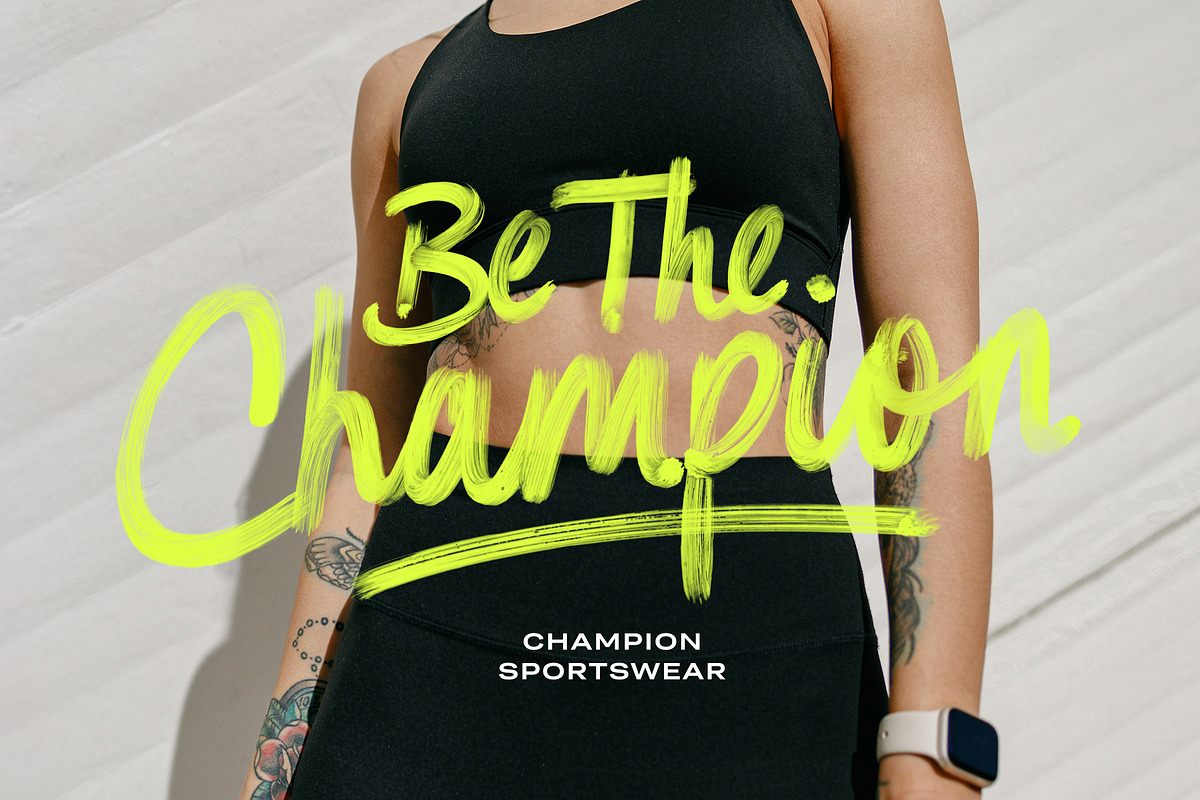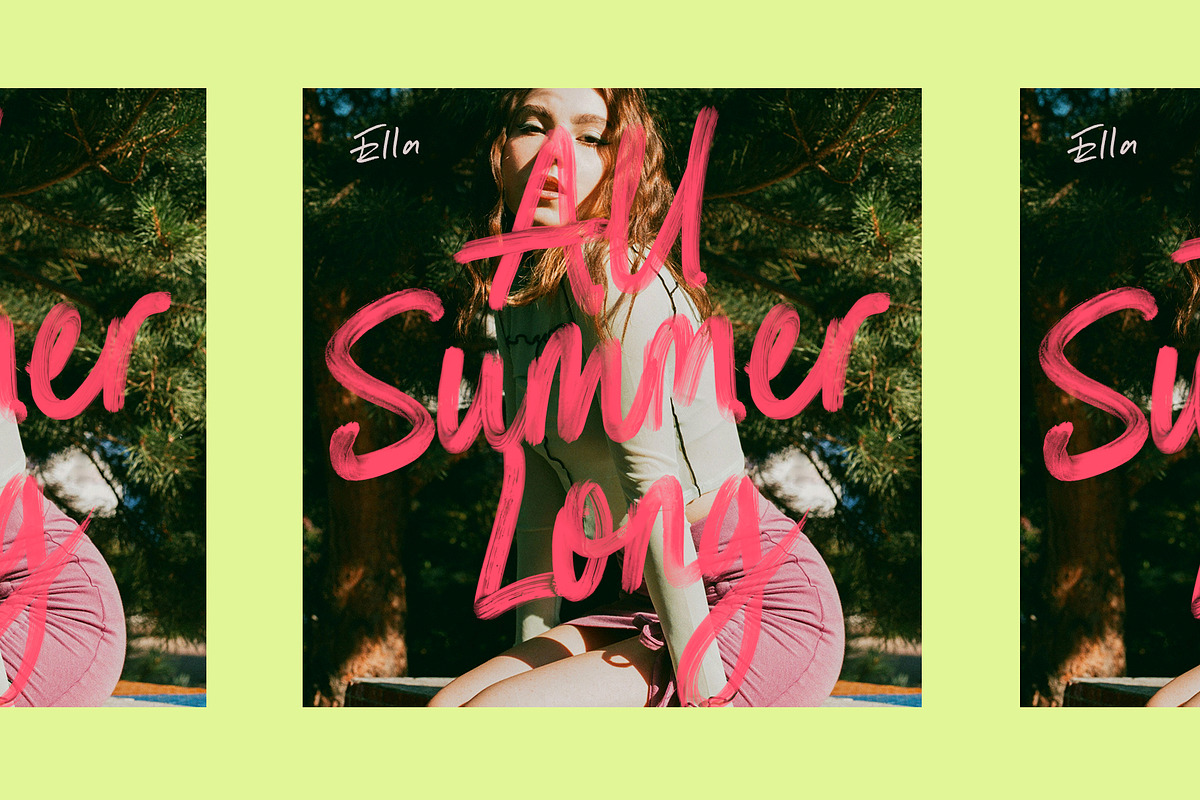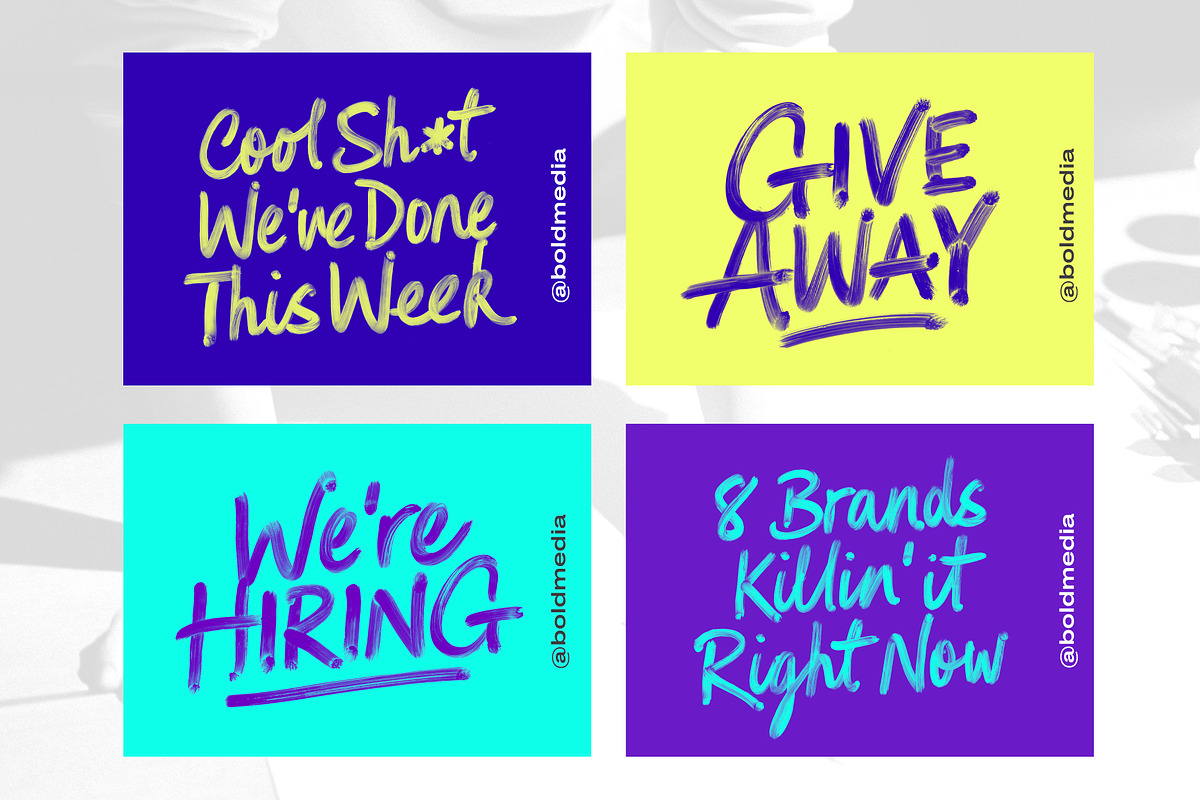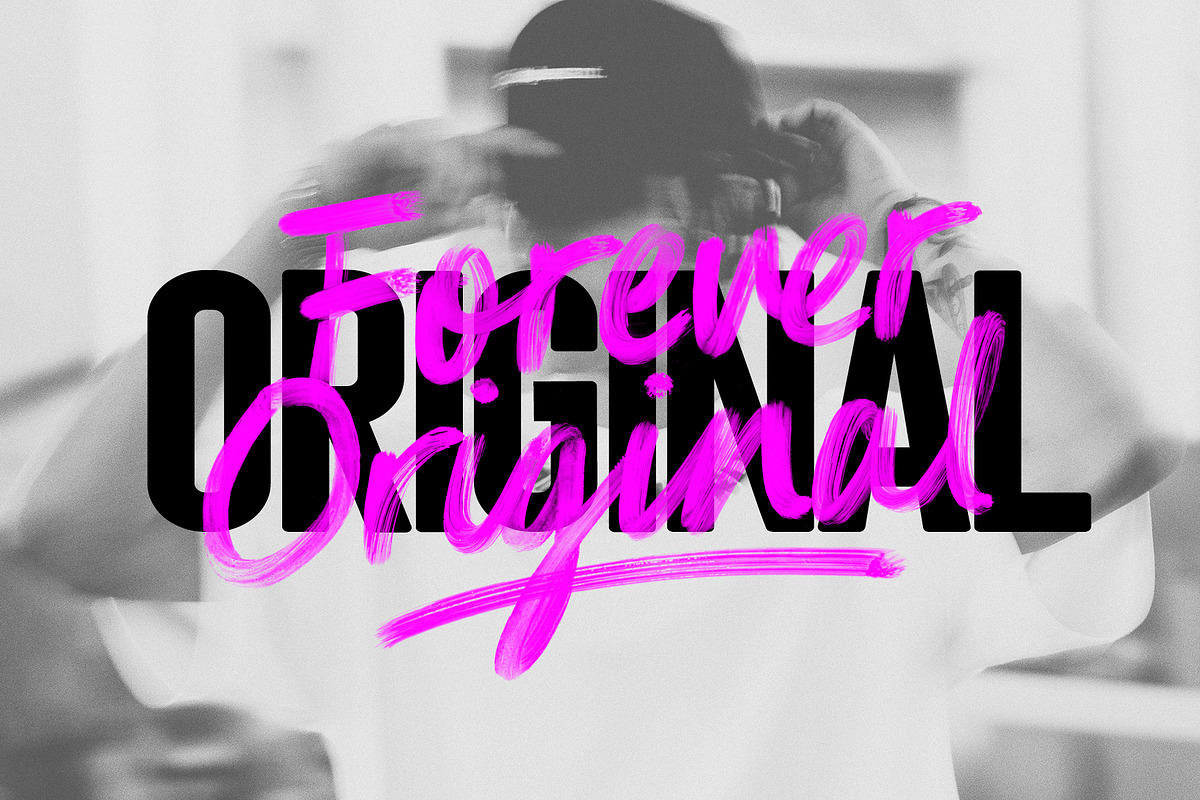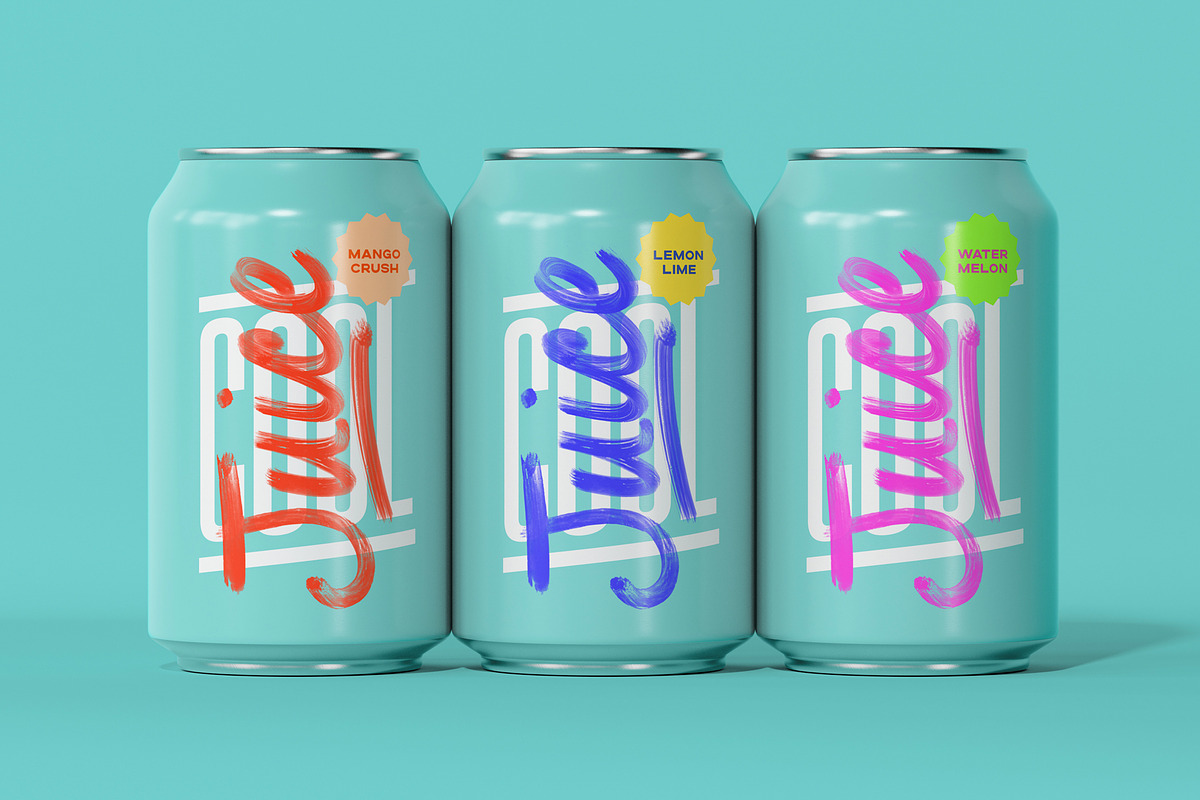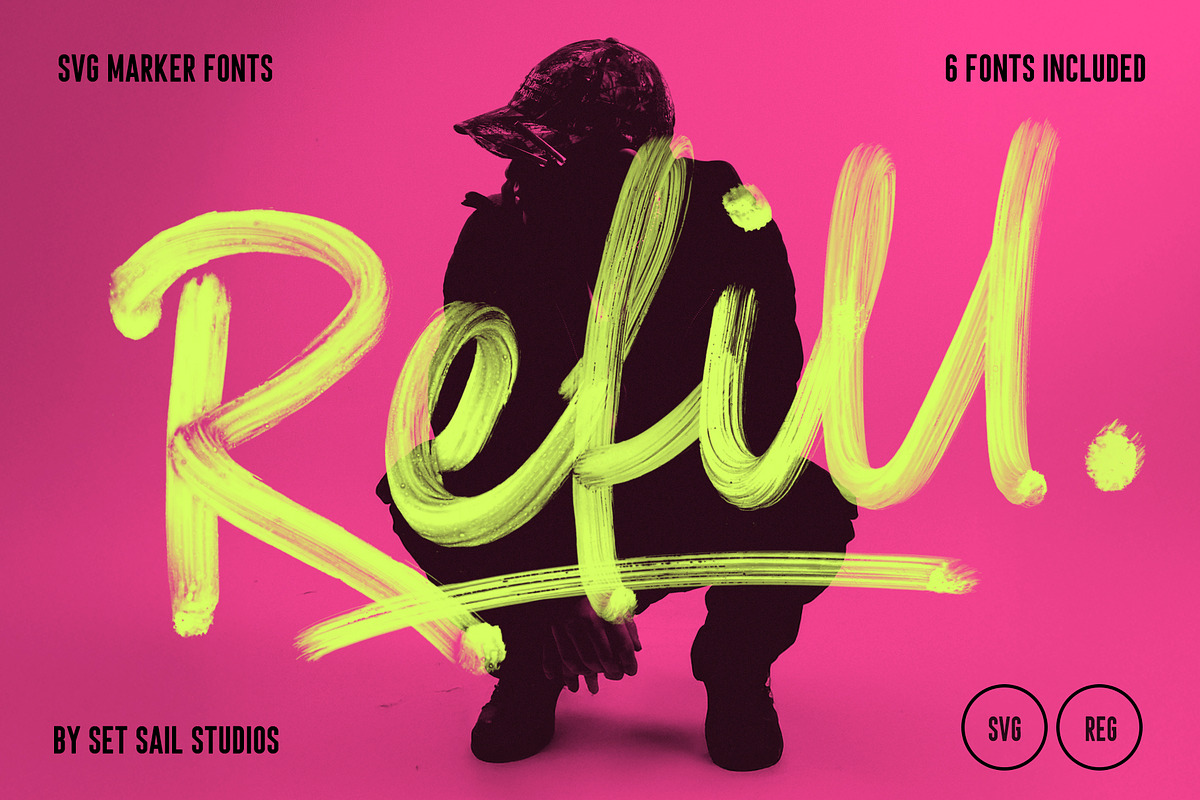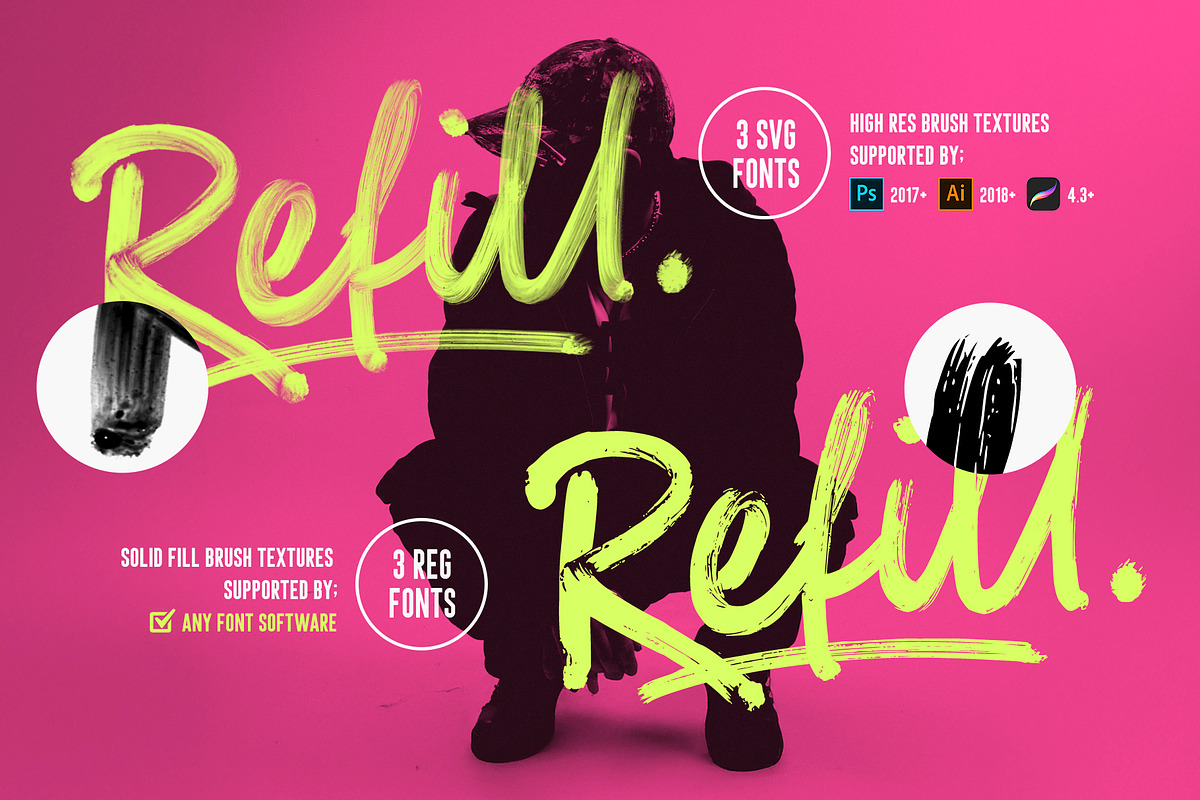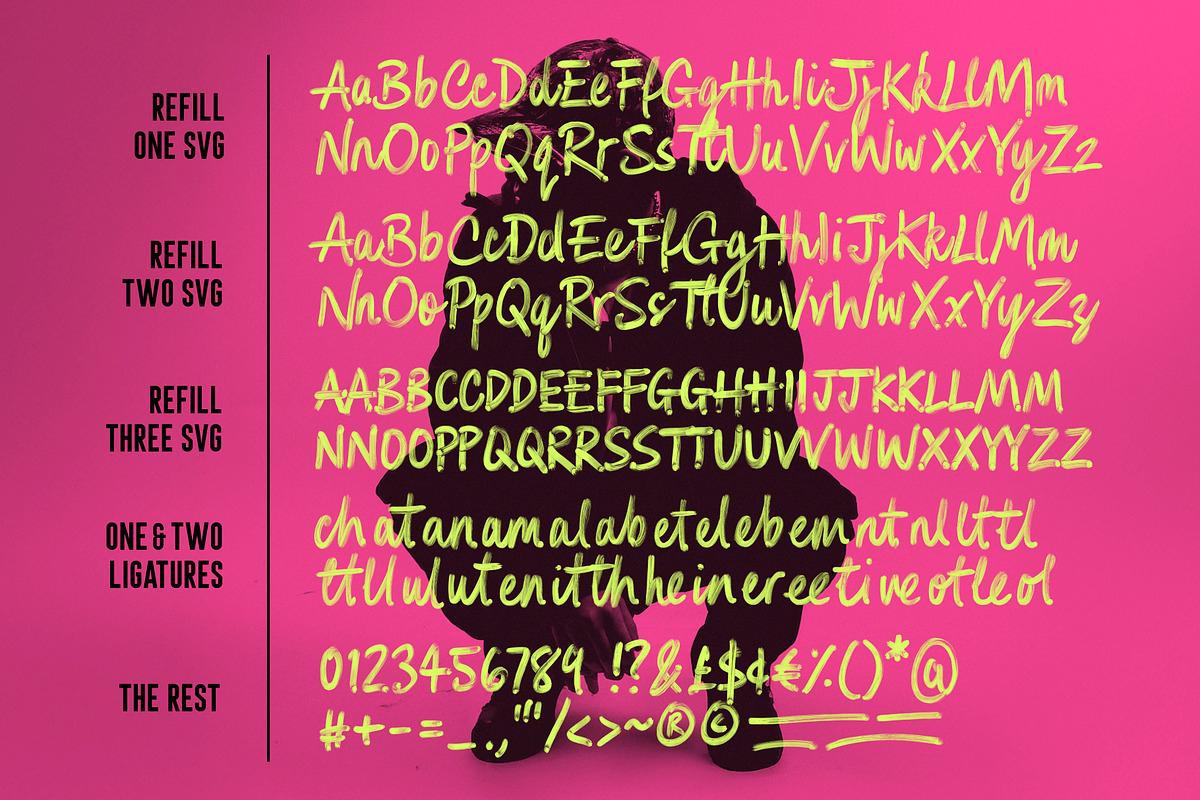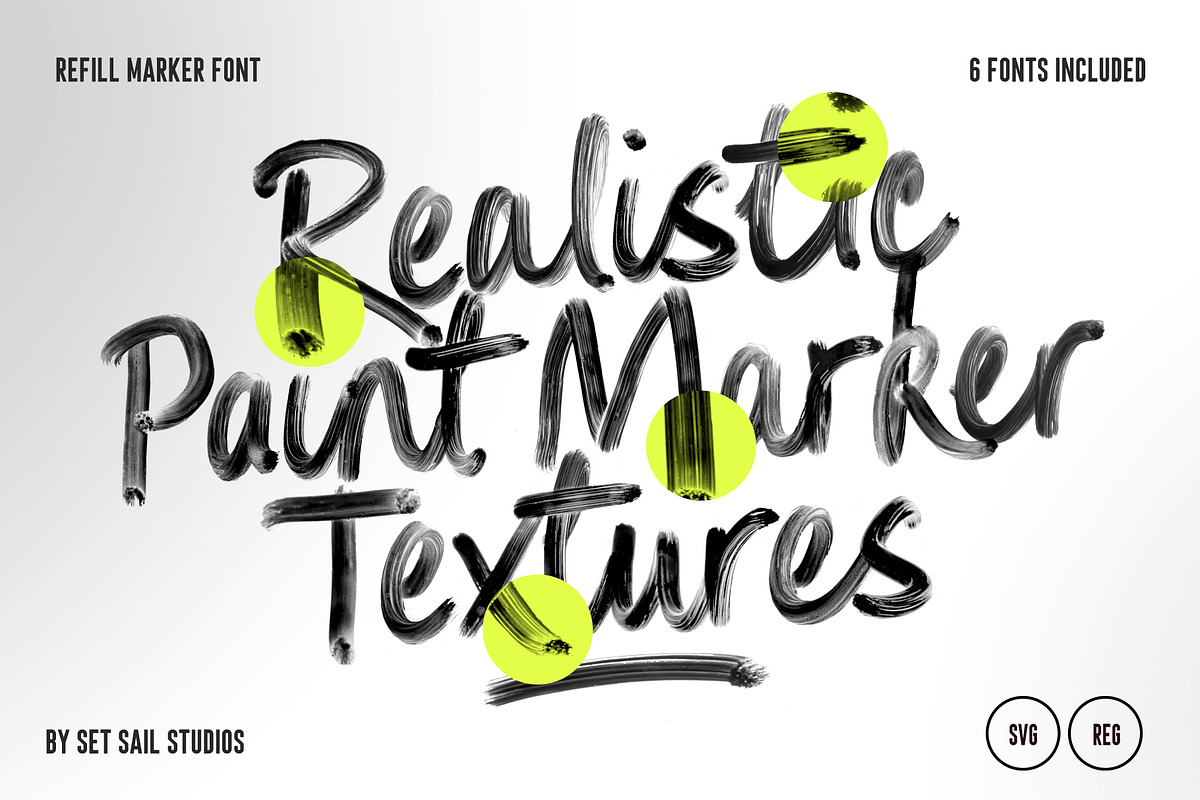
Refill SVG Marker Font Set
Introducing the Refill Marker Font! A hyper-realistic flowing brush font which was hand drawn using real paint-marker pens on a glossy laminate surface. That realism is achieved through the use of Opentype-SVG technology, which allows the inclusion of high resolution brush textures totally built-in to each letter as a transparency - essentially giving you completely raw and unfiltered hand lettering as an actual type-able font! Refill Marker font is the perfect choice for adding an exciting dynamism to your lettering with an unmistakably human touch.
Refill Marker Font includes 2 full sets of upper & lowercase fonts, as well as a 3rd set of smaller uppercase lettering - perfect for when you want to only use all-caps. All fonts are designed to be mixed and match, giving you 6 variations of each letter for you to experiment with - allowing you to create truly custom looking lettering in a flash. Not only that, there are also 30 lowercase ligatures included, which are uniquely designed pairings of letters which flow more naturally and offer even more customisation options.